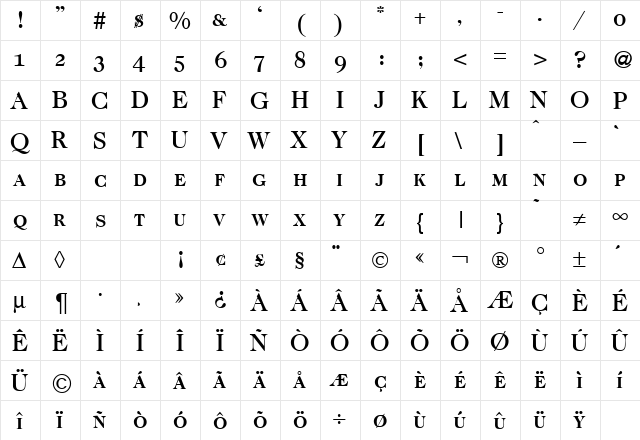
Caslon335Smc Bold
Design Context for Caslon335Smc Typeface
Caslon335Smc offers clean, dependable letterforms without strong stylistic allegiance, making it a practical choice for designers who need flexibility. The heavy weight commands attention and anchors typographic hierarchies.
Pro Tip: Use Caslon335Smc in both headline and body roles to test its range before committing to a single application.